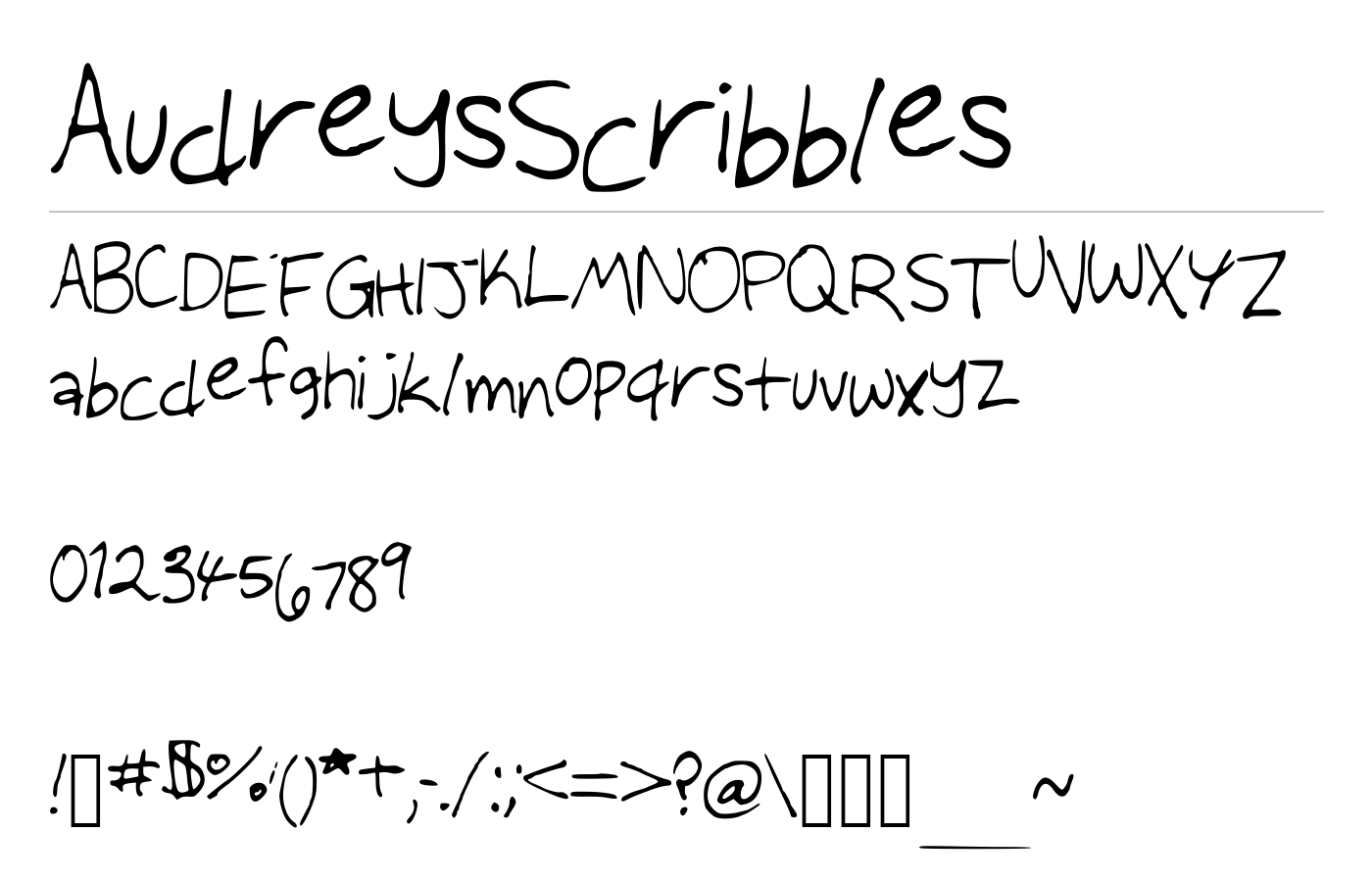
AudreysScribbles is a casual, handwritten font with a playful and informal feel, featuring irregular, uneven strokes that mimic natural penmanship. Its light weight and airy spacing make it perfect for creative projects, personal notes, and fun, approachable branding that seeks a friendly, human touch. This font works well in invitations, social media graphics, and informal headlines where personality and warmth are key.
AudreysScribbles Font
About AudreysScribbles Font